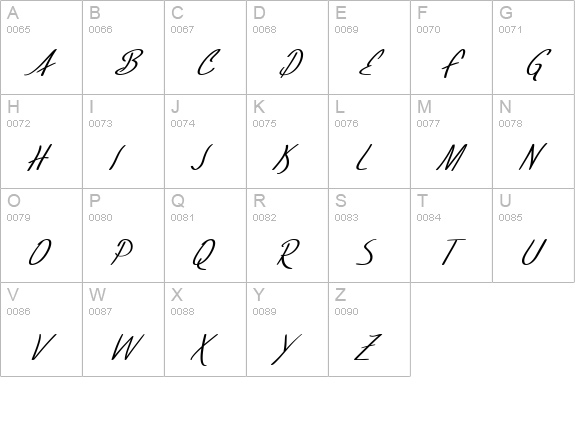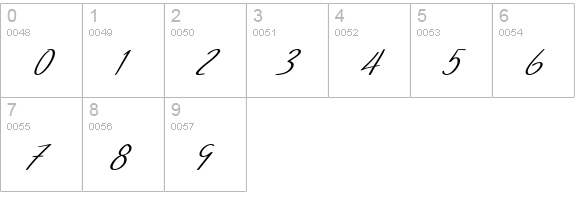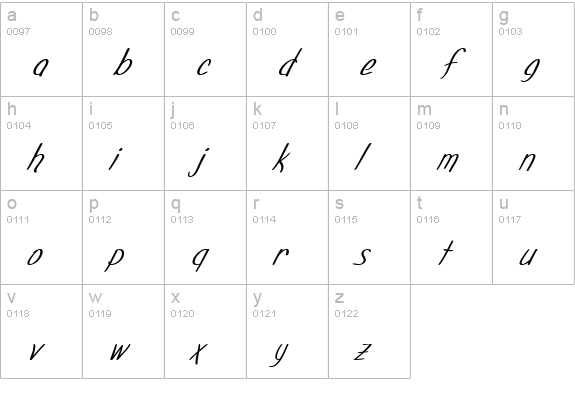
SF Foxboro Script Italic Font Details
SF Foxboro Script Italic is a distinctive, italic variant in the SF typeface family \xE2\x80\x94 well suited to design and typography projects.
SF Foxboro Script Italic is a beautifully crafted font that exudes elegance and sophistication. Its graceful, flowing strokes make it perfect for adding a touch of class to any design project. Whether you're creating wedding invitations, branding materials, or signage, this font is sure to leave a lasting impression. The italicized form of SF Foxboro Script adds a sense of movement and dynamism to your text, creating a visually engaging experience for your audience. It effortlessly combines the timeless appeal of a classic script font with a modern twist, making it versatile enough to be used in a variety of contexts. One of the best things about SF Foxboro Script Italic is that it is completely free to download. You can easily access this stunning font at FontsMarket.com, where it is available for instant download. With its freely available status, you can add a touch of sophistication to your designs without breaking the bank. Whether you're a professional designer or a hobbyist, SF Foxboro Script Italic is a must-have font in your collection. Its versatility, elegance, and the fact that it can be freely downloaded make it an invaluable resource for all your creative endeavors. Don't miss out on the opportunity to elevate your designs with this stunning typeface. Head over to FontsMarket.com now and start exploring the endless possibilities that SF Foxboro Script Italic has to offer!